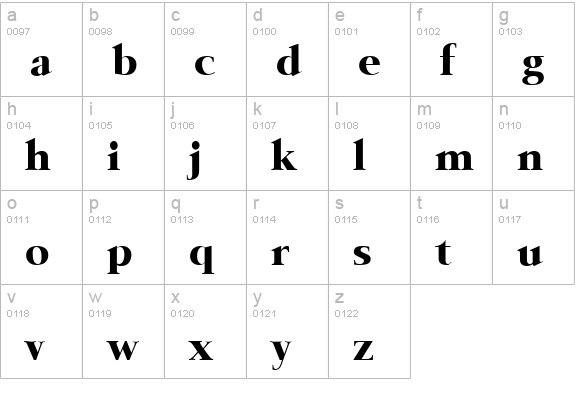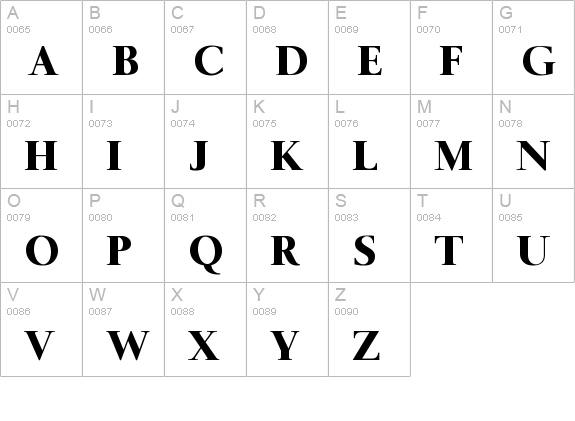
Bering Regular Font Details
Bering Regular is the standard, neutral variant in the Bering typeface family \xE2\x80\x94 well suited to general body text, paragraphs, and standard typographic work.
Bering Regular font is a versatile and modern typeface designed to enhance your design projects with its clean and elegant aesthetic. With its balanced proportions and crisp letterforms, Bering Regular is perfect for a wide range of applications, from branding to editorial design. This stylish font is available for free download at FontsMarket.com, making it easily accessible for designers looking to add a touch of sophistication to their work. Whether you're creating a logo, website, or printed materials, Bering Regular's timeless appeal will help your designs stand out. Don't miss out on this fantastic font that effortlessly combines both professionalism and creativity.